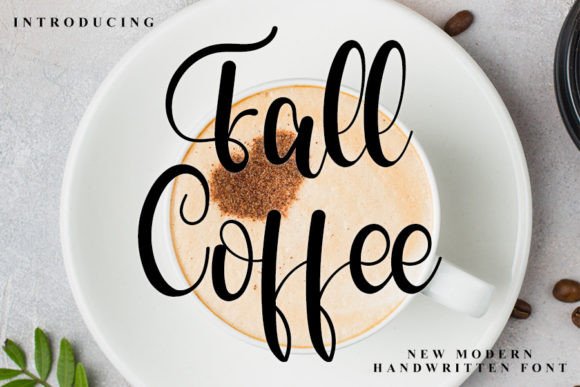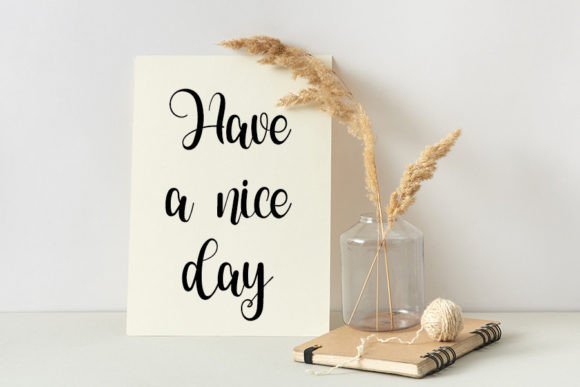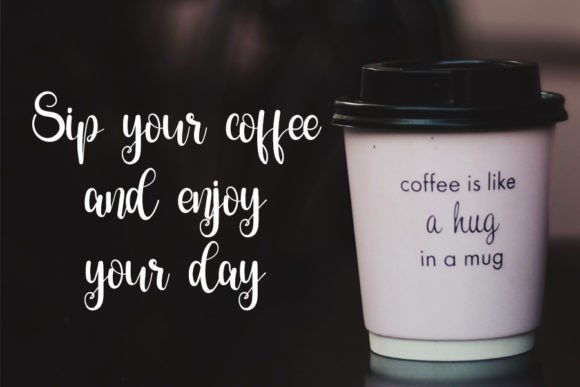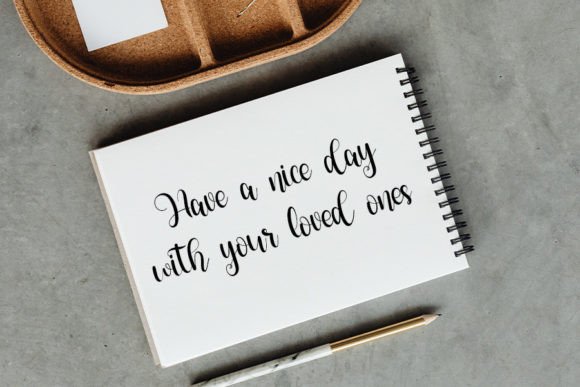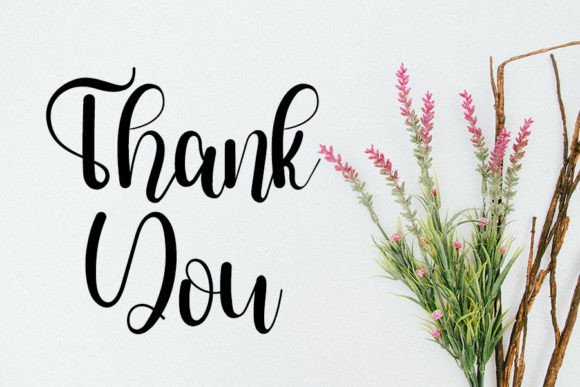
About Fall Coffee Font
Introducing “Fall Coffee” – Your Neat and Beautiful Handwritten Font for Timeless Elegance!
“Fall Coffee” is not just a font; it’s a neat and beautiful handwritten typeface that exudes an elegant touch, perfect for all your favorite projects. With its distinct and timeless style, this font will capture your heart and elevate your designs to new heights of beauty and sophistication.
With “Fall Coffee,” you get a font that’s both classic and distinctive, making it an ideal choice for a wide range of creative applications. Its handwritten elegance adds a touch of sophistication and authenticity to your text, ensuring that your content stands out and makes a lasting impression.
Imagine using “Fall Coffee” to create stunning branding materials that reflect your brand’s unique identity, design elegant invitations that set the tone for special occasions, craft beautiful posters that capture attention, or add a touch of timeless beauty to your creative projects. This font’s versatility and timeless charm will make your creations truly spectacular.
Whether you’re an experienced designer or someone with a passion for creativity, “Fall Coffee” is your go-to font for embracing elegance and beauty in your work.